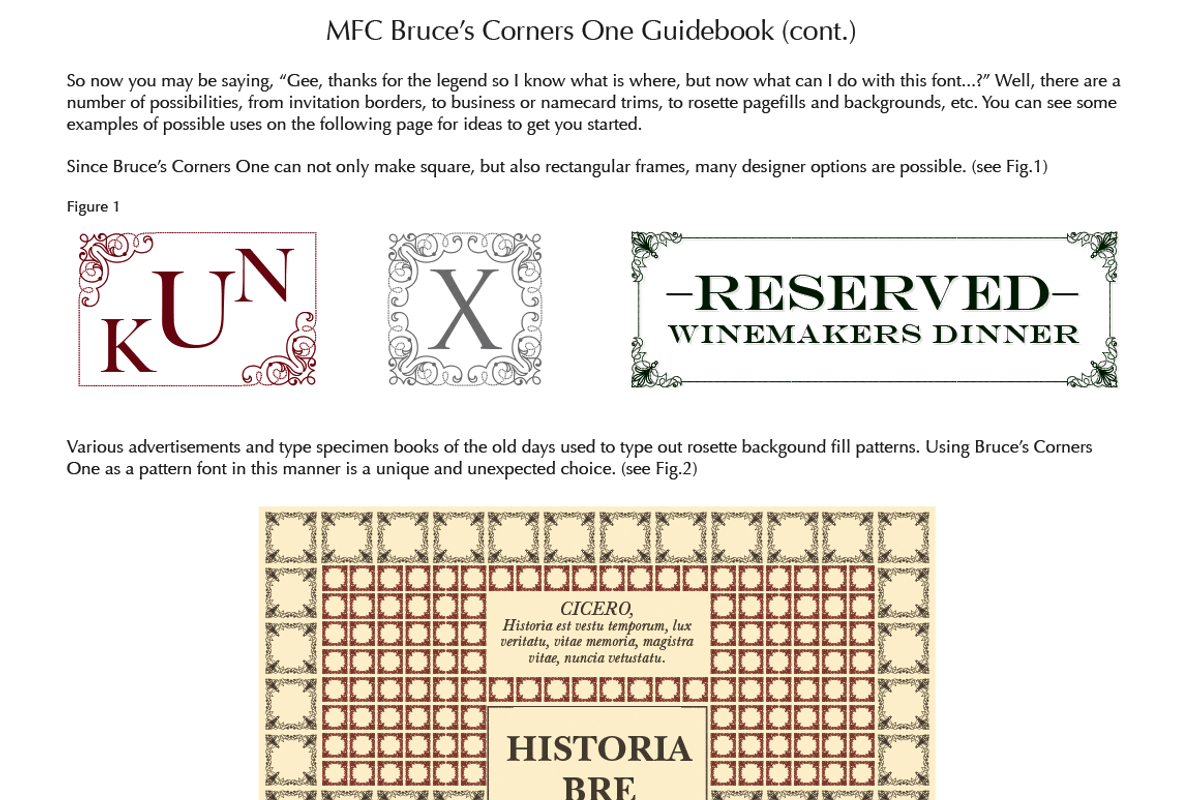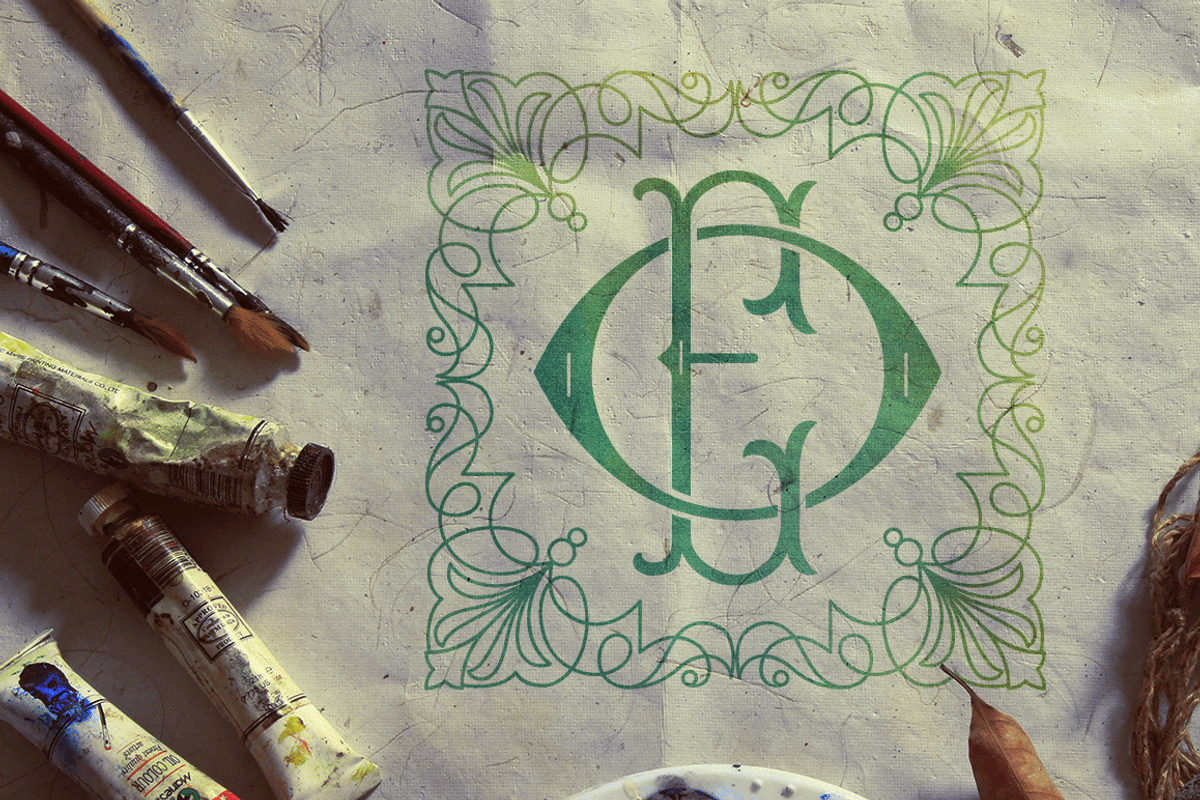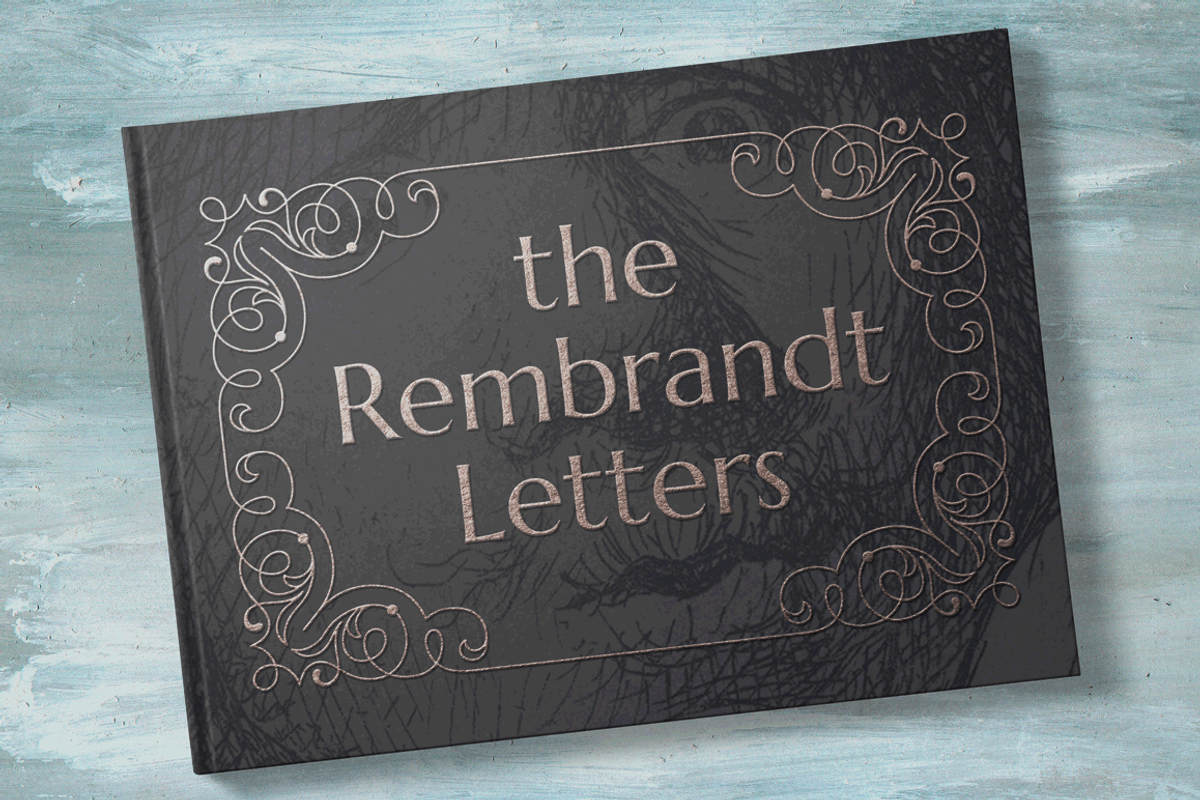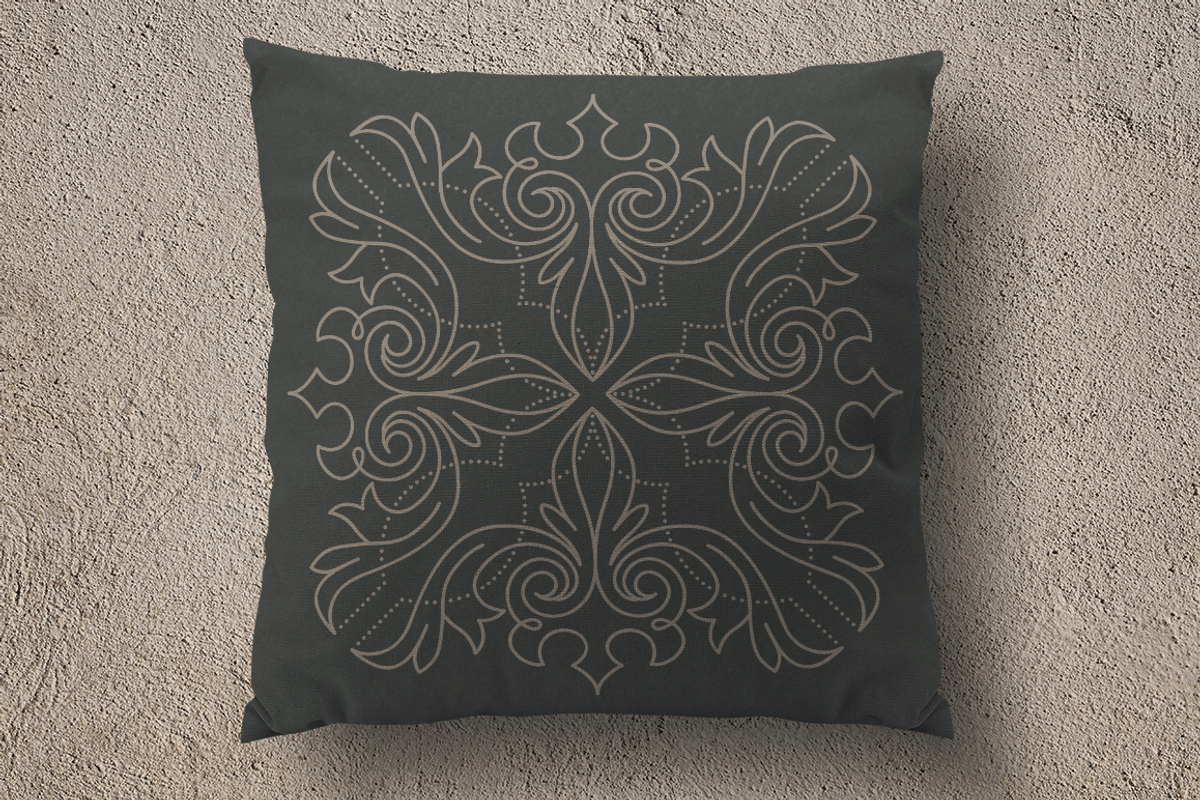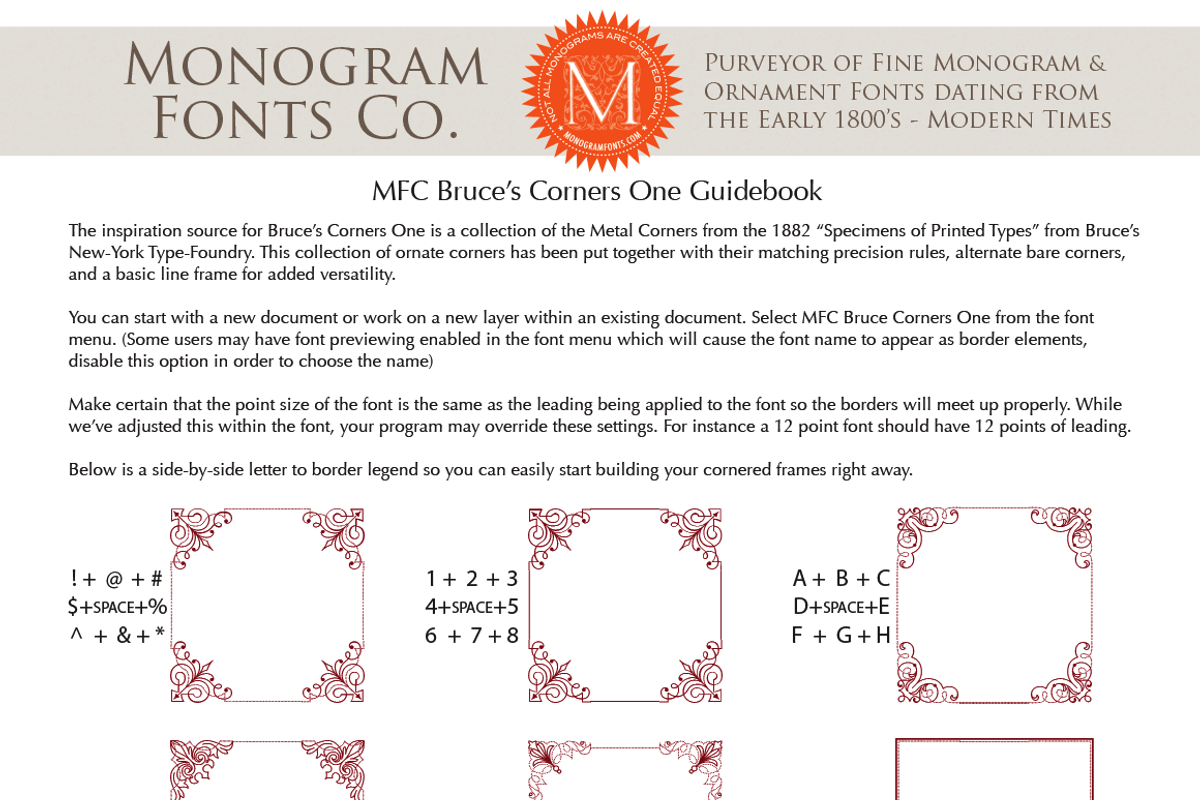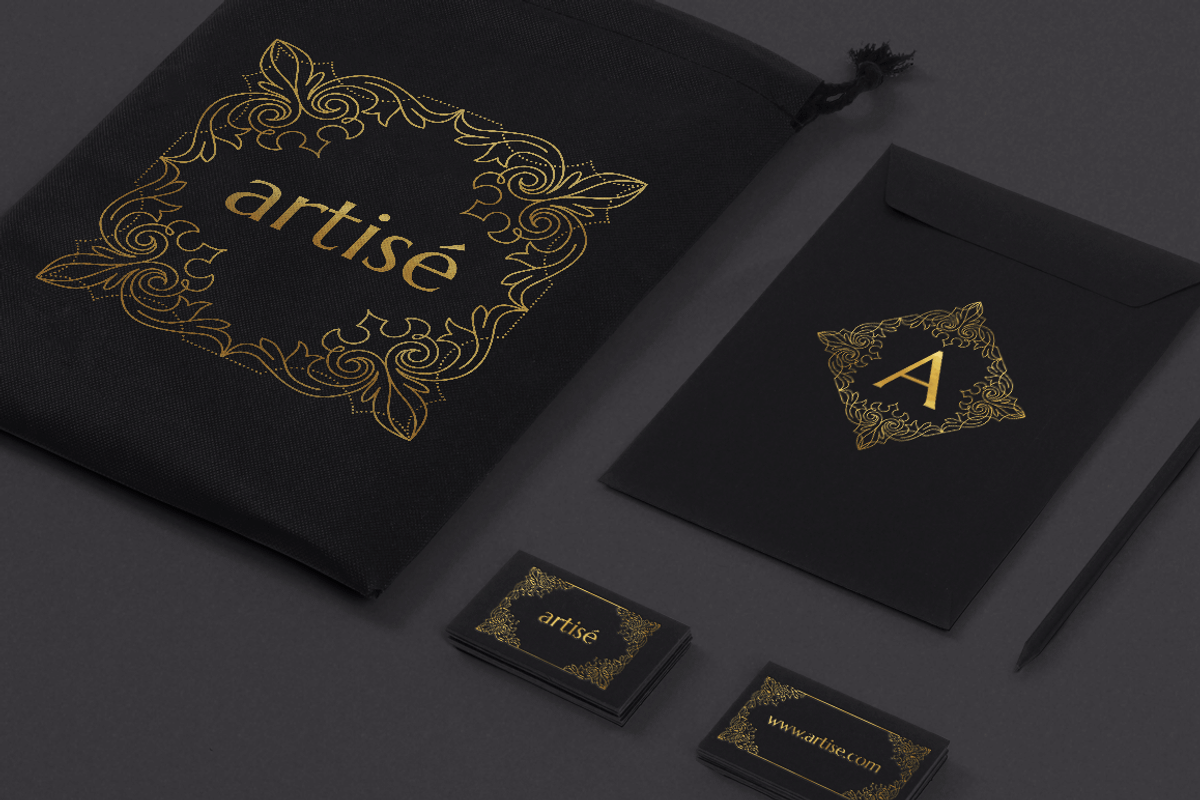
MFC Bruce's Corners One
MFC Bruce's Corners One by Monogram Fonts Co. is a font selected for branding, posters, packaging, typography.
- This collection of ornate corners has been put together with their matching precision rules, alternate bare corners, and a basic line frame
Why MFC Bruce's Corners One is worth a look
MFC Bruce's Corners One by Monogram Fonts Co. fits naturally into Branding, posters, packaging, typography.